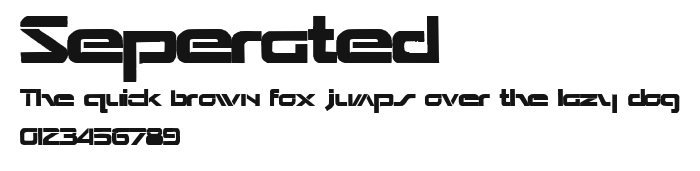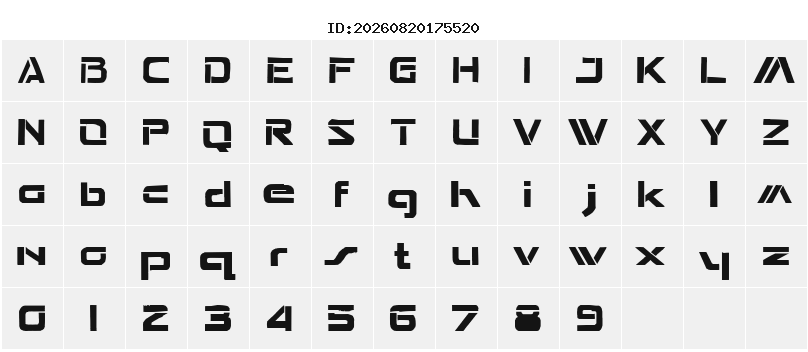
• Font Name: Seperated
• Full Font Name: Seperated
About Seperated.ttf
Seperated.ttf is a modern, elegant sans-serif font designed for ultimate readability and visual harmony. Perfect for branding, headlines, web design, and print materials.